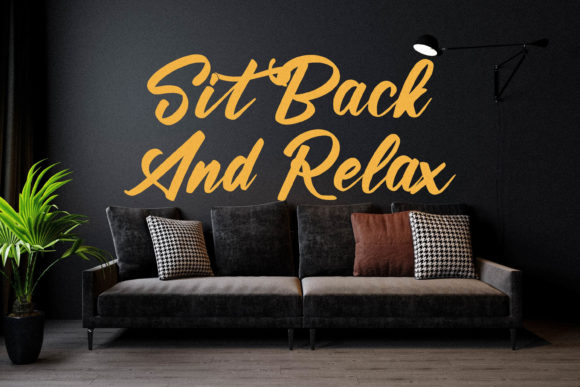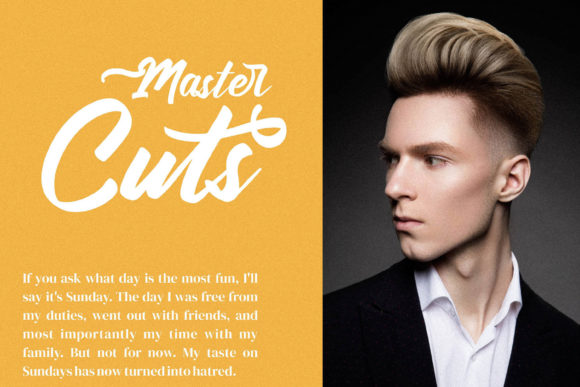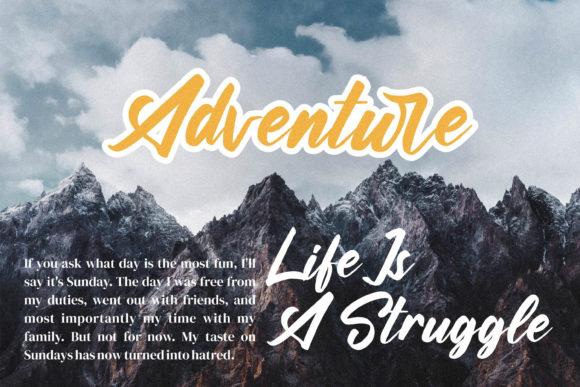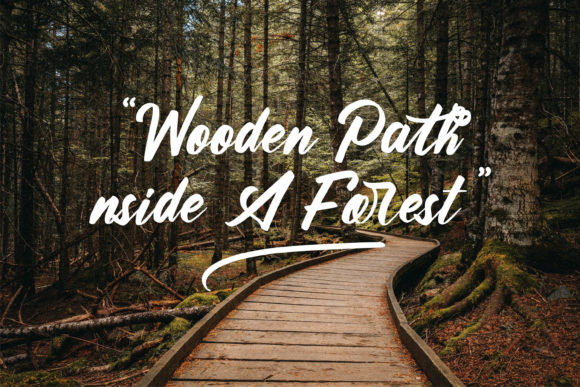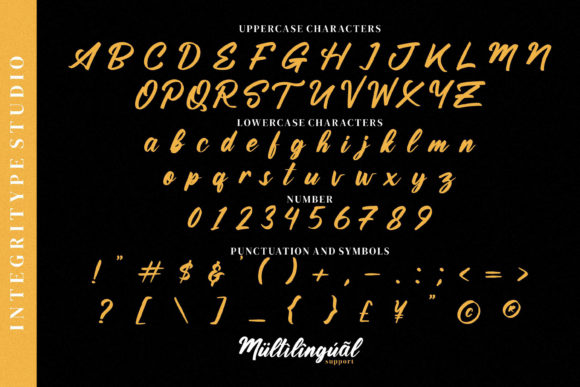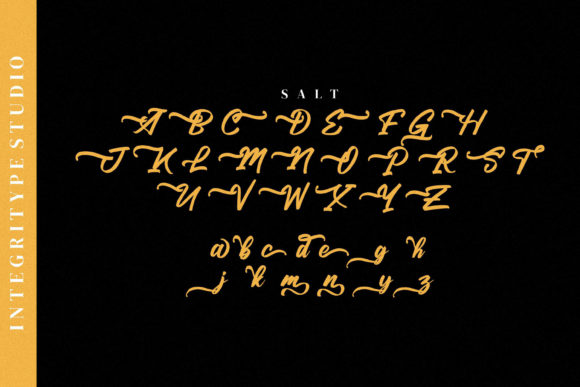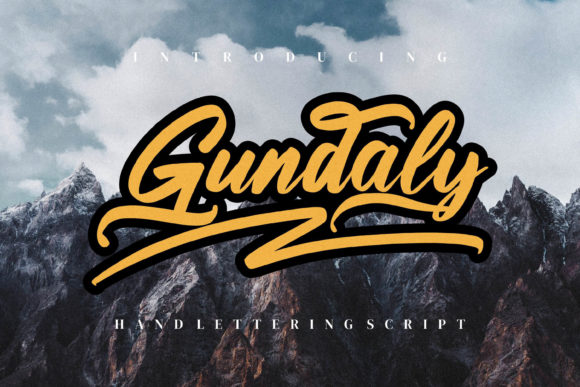
Gundaly Font: The Perfect Handwritten Font for Your Creative Projects
Are you a designer, crafter, or DIY enthusiast looking for a unique and versatile font to elevate your creative projects? Look no further than the Gundaly Font! This beautifully crafted handwritten font is clean, quirky, and perfect for a wide range of applications, from logos and branding to social media and crafty DIY projects.
What Makes Gundaly Font So Special?
Gundaly Font is a one-of-a-kind handwritten font that stands out from the crowd. Its clean lines and quirky charm make it an excellent choice for designers and crafters who want to add a personal touch to their work. Whether you’re creating a logo, social media graphics, or a crafty DIY project, Gundaly Font is the perfect fit.
Key Features of Gundaly Font
- Unique Handwritten Style: Gundaly Font boasts a distinctive handwritten style that’s both clean and quirky.
- PUA Encoded: This font is PUA (Private Use Area) encoded, which means you can access all the glyphs and swashes with ease.
- Versatile: Gundaly Font is perfect for a wide range of applications, including logos, branding, social media, and crafty DIY projects.
- Easily Customizable: With PUA encoding, you can easily access and customize the font’s glyphs and swashes to suit your needs.
Why Choose Gundaly Font?
So, why should you choose Gundaly Font for your creative projects? Here are just a few reasons:
- Stand Out from the Crowd: With Gundaly Font, you can create unique and eye-catching designs that set you apart from the competition.
- Add a Personal Touch: This font’s handwritten style adds a personal touch to your designs, making them more relatable and engaging.
- Save Time: With PUA encoding, you can access all the glyphs and swashes quickly and easily, saving you time and effort.
- Perfect for Crafters and DIY Enthusiasts: Gundaly Font is ideal for crafters and DIY enthusiasts who want to add a professional touch to their handmade projects.